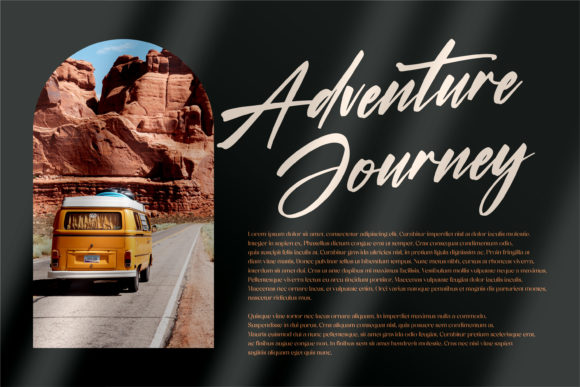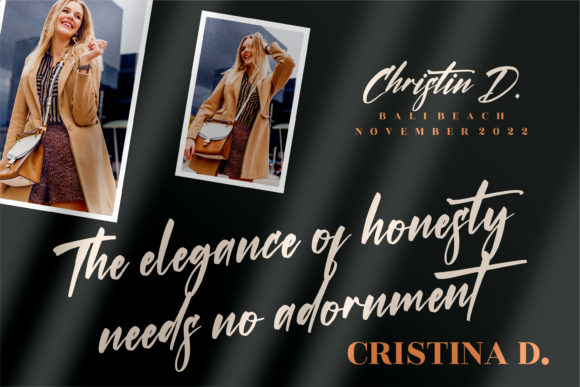
Hartman & Richard Font
db-ku.com - Script & Handwritten -- Hartman & Richard is a lovely and stylish script font that exudes elegance and class. This font was particularly crafted for those who need a beautiful and refreshing look to their designs.